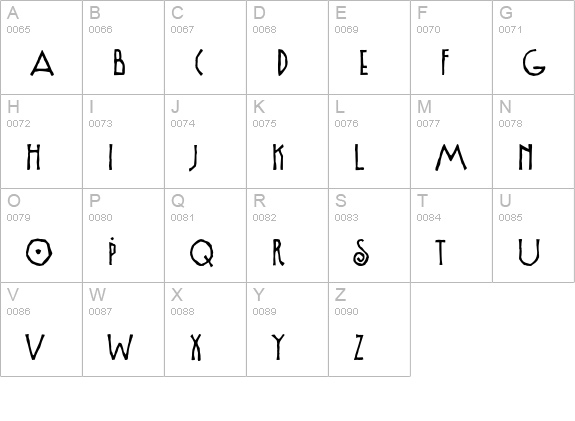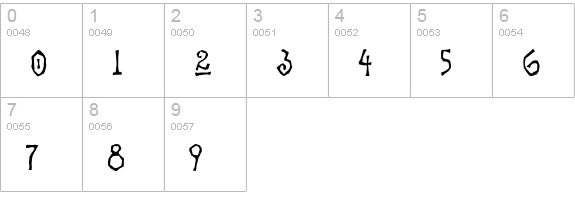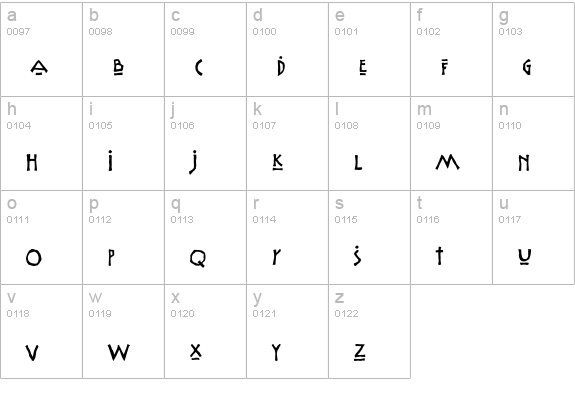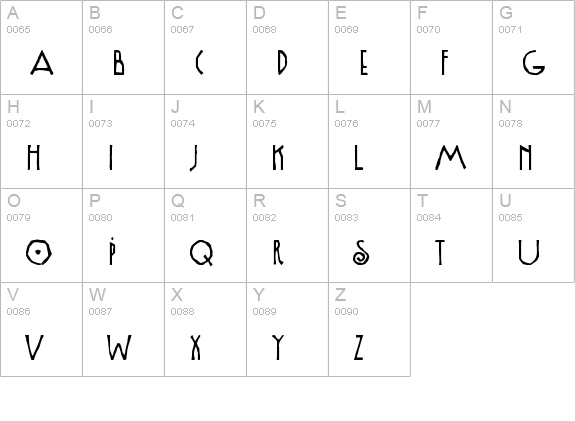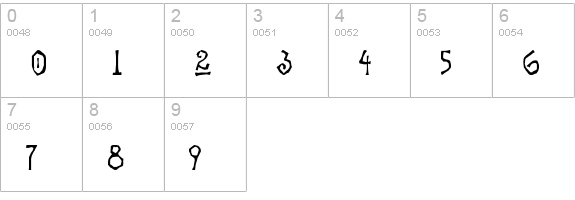
ModernBlues Font Details
ModernBlues font is a contemporary and stylish typeface that perfectly blends modern design elements with classic bluesy aesthetics. Its sleek lines and bold strokes exude a sense of sophistication and creativity, making it a versatile choice for a wide range of design projects. Whether you're working on a branding campaign, website design, or print materials, ModernBlues font will add a touch of elegance and flair to your work. What's even better is that ModernBlues font is available for free download at FontsMarket.com. This means you can easily access this high-quality font without breaking the bank. So why wait? Give your projects a modern and bluesy twist with the captivating ModernBlues font today!